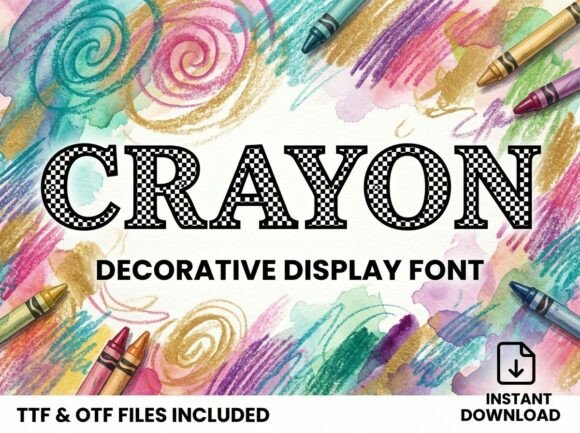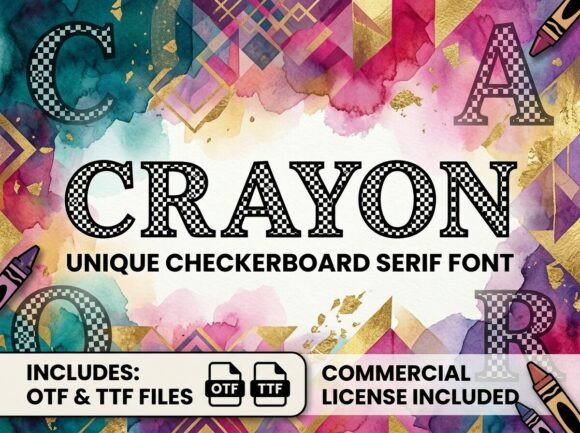
Crayon Font: A Vibrant and Artistic Display Font for Creative Minds
Are you tired of using the same old fonts for your creative projects? Look no further! The Crayon Font is a stunning decorative display font designed to add a pop of personality to your designs. With its unique artistic elements and strong visual personality, this font is perfect for creators who want to break away from the ordinary and make a statement.
What Makes Crayon Font Special?
The Crayon Font is a versatile font that can be used for a variety of creative projects, including bold headlines, artistic logos, and creative packaging. Its professional and polished finish ensures that your designs look high-end and visually appealing. Whether you’re a designer, crafty DIY enthusiast, or entrepreneur, this font is sure to inspire your creativity and take your designs to the next level.
Before making a purchase, it’s essential to note that the Crayon Font is an ALL-CAPS (Uppercase Only) display typeface. This means that it does not include lowercase letters. The font is specifically designed for high-impact headlines, logos, and decorative initials, where every letter is a work of art.
Use Cases: Where to Use Crayon Font
The Crayon Font is perfect for a variety of creative projects, including:
• Headlines and Titles: Use the Crayon Font to create bold and eye-catching headlines that grab attention.
• Logos and Branding: Create a unique and memorable logo for your brand using the Crayon Font.
• Packaging Design: Add a touch of personality to your product packaging with the Crayon Font.
• Artistic Projects: Use the Crayon Font to add a creative and artistic touch to your projects, such as posters, flyers, and brochures.
Tips for Using Crayon Font Effectively
To get the most out of the Crayon Font, here are some tips:
• Use it sparingly: The Crayon Font is a bold and attention-grabbing font, so use it sparingly to avoid overwhelming your design.
• Pair it with a neutral font: Pair the Crayon Font with a neutral font to create contrast and visual interest.
• Experiment with colors: The Crayon Font looks great in bold and bright colors, so don’t be afraid to experiment and find the perfect color scheme for your design.
The Crayon Font is a unique and artistic display font that’s perfect for creators who want to add a touch of personality to their designs. With its professional and polished finish, versatility, and bold visual personality, this font is sure to inspire your creativity and take your designs to the next level. So why wait? Get your hands on the Crayon Font today and start creating stunning designs that stand out from the crowd!